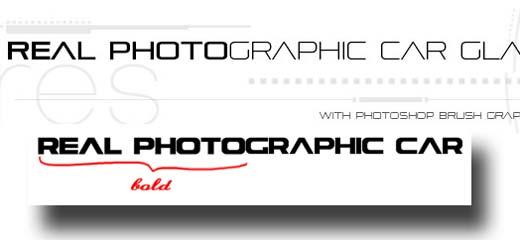
Font in promo
Someone knows what font is used in this promo?
The “real photographic” part?
Could it be Strasua Font?
Nope, its not that. Similar style, but you can see the A is not slanted.
Looks like the astera font except for the bold part.
I guess it's the Pirulen family
Yeah, definitely looks like Pirulen. :)